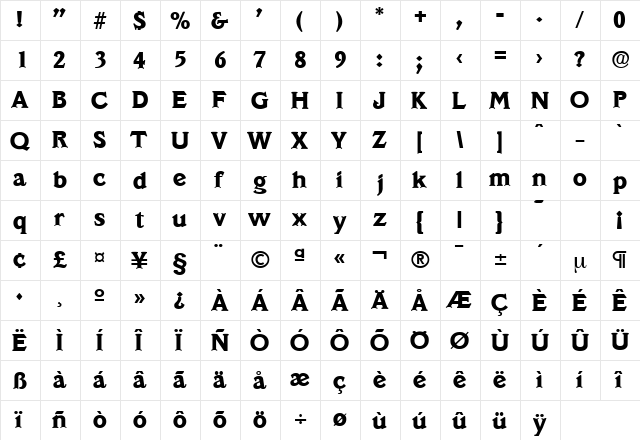
Veracruz-Serial-ExtraBold Regular
Design Context for Veracruz-Serial-ExtraBold Typeface
Veracruz-Serial-ExtraBold is a composed and adaptable typeface that performs quietly and consistently across a wide range of design contexts. The heavy weight commands attention and anchors typographic hierarchies.